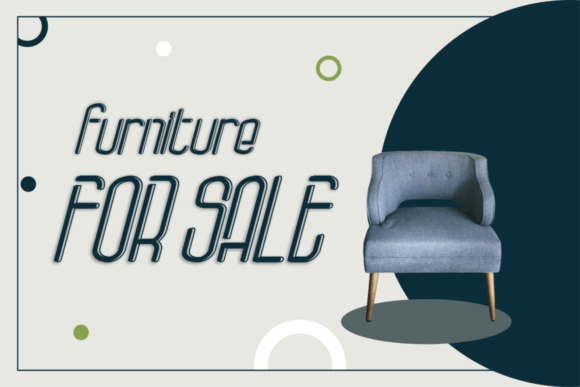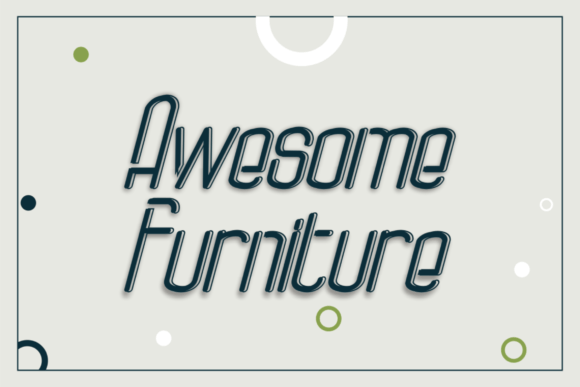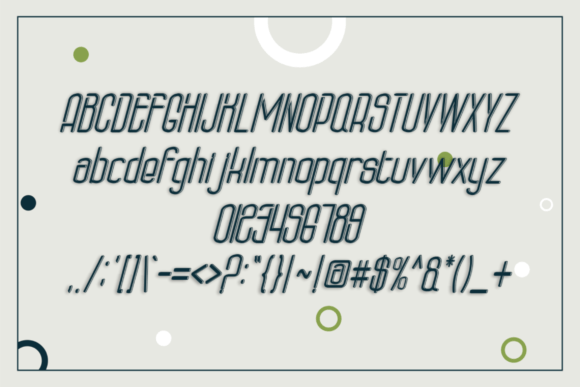
Introduction to New Propertys Font
New Propertys is a bold and creative sans serif font suitable for any branding project like logo, t-shirt printing, export, and more.
It looks outstanding in a wide range of contexts .
Why Choose New Propertys Font?